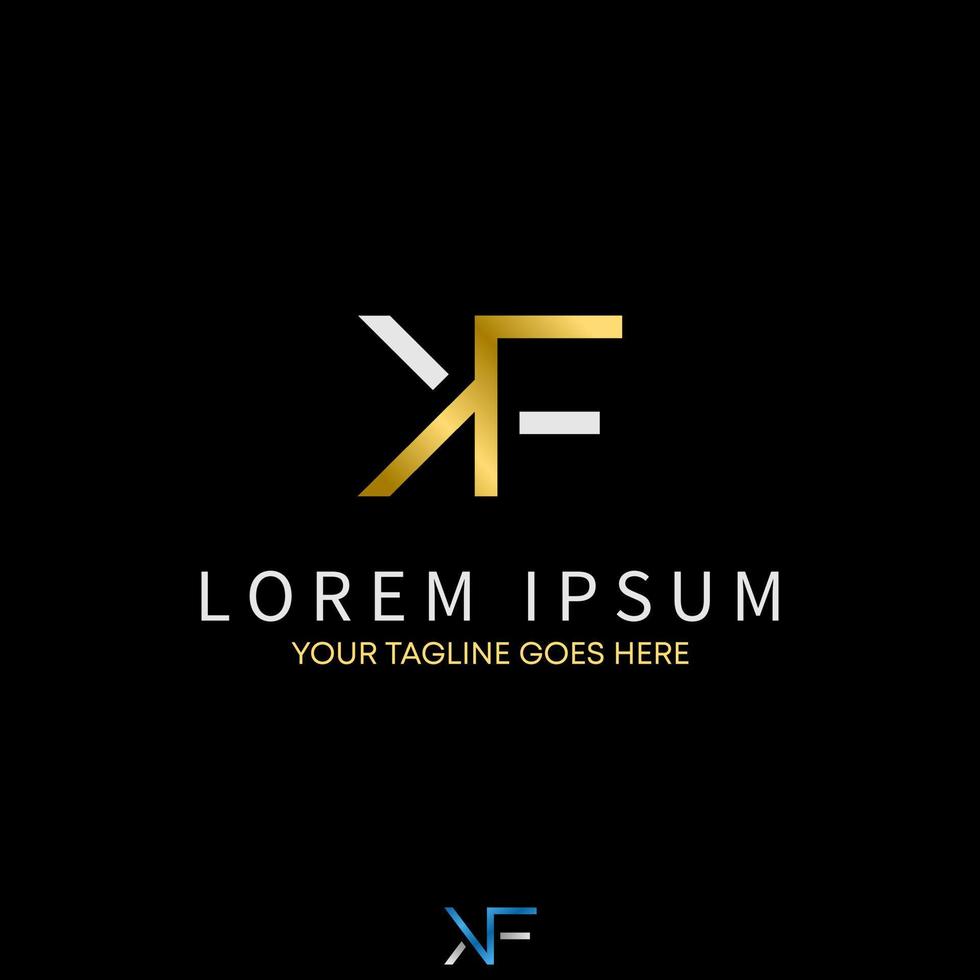
Letter or word KF of FK font flip and Cutting line image graphic icon logo design abstract concept vector stock. Can be used as a symbol related to initial. Pro Vector